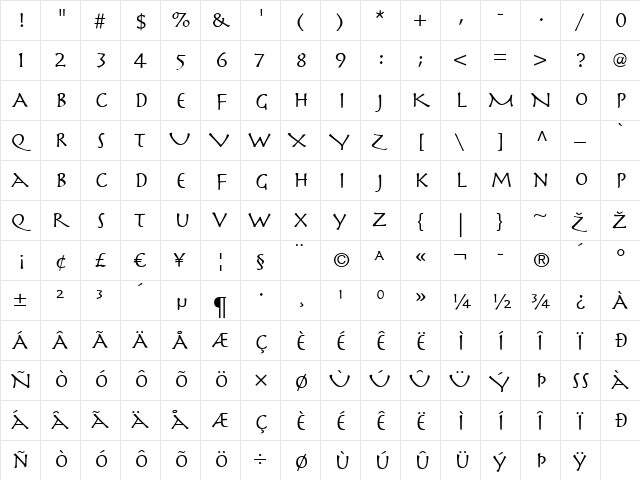
Herculanum LT Regular
| Foundry | Linotype Library GmbH |
| Designer | Adrian Frutiger |
Design Context for Herculanum LT Typeface
Herculanum LT takes a measured approach to typography — its balanced proportions and neutral character make it a reliable workhorse for both digital and print work. Its slender proportions lend an understated elegance to any composition.